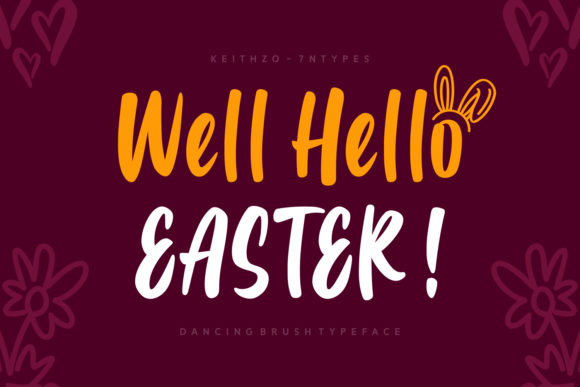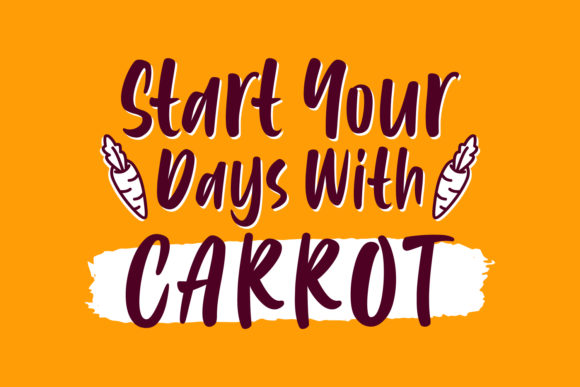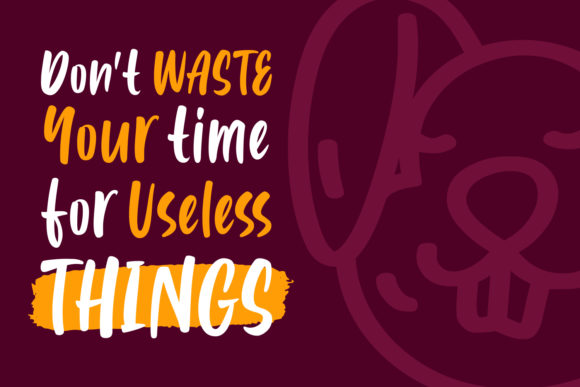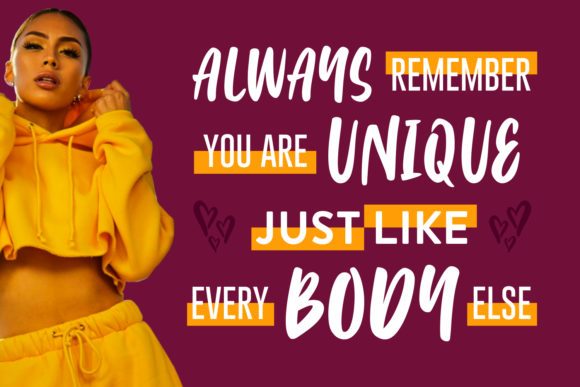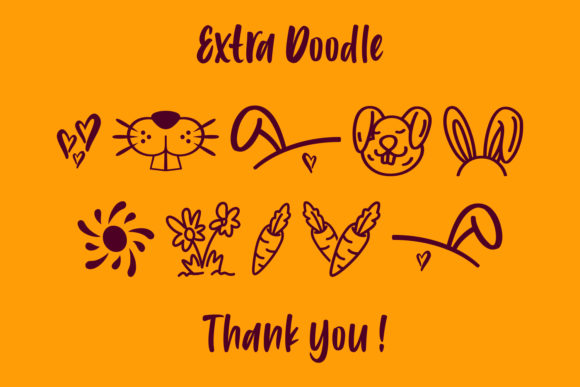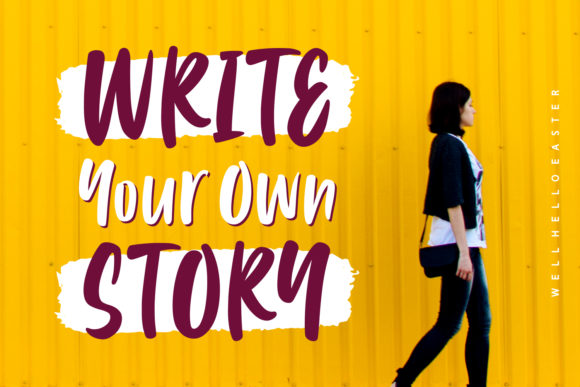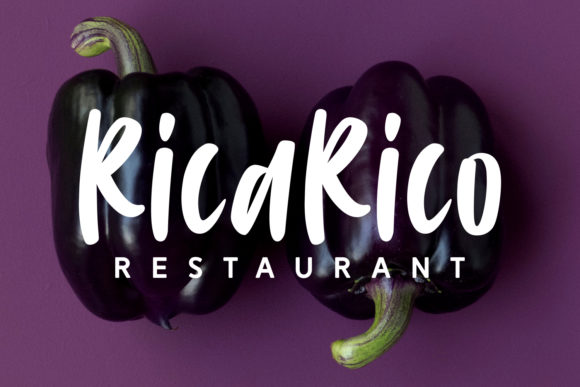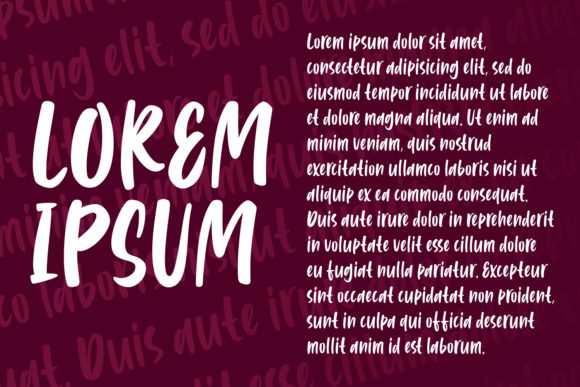
Well Hello Easter Font
About Well Hello Easter Font
The Well Hello Easter is a fun script font. This dancing brush font can be used to add a playful touch to your designs.
Also included are fun Easter elements to give your designs an extra touch.